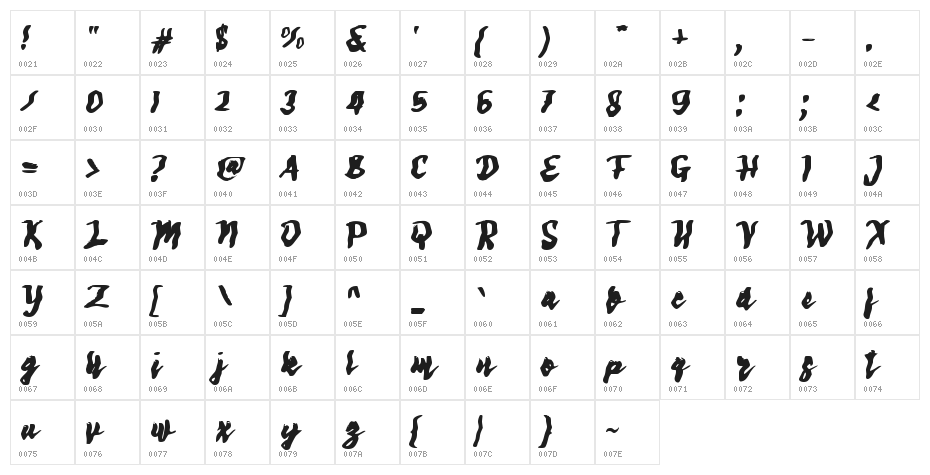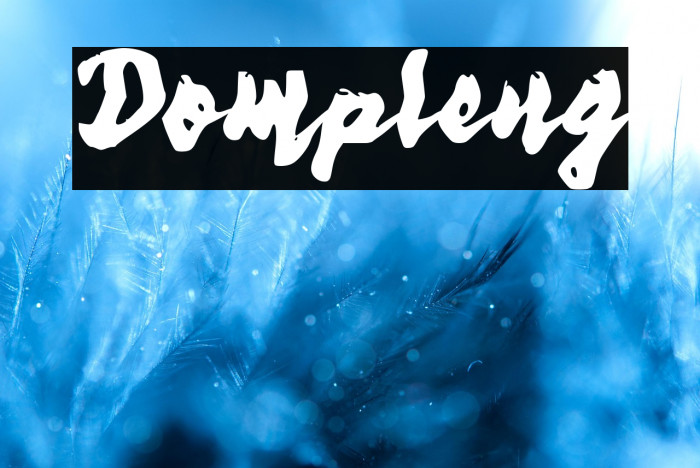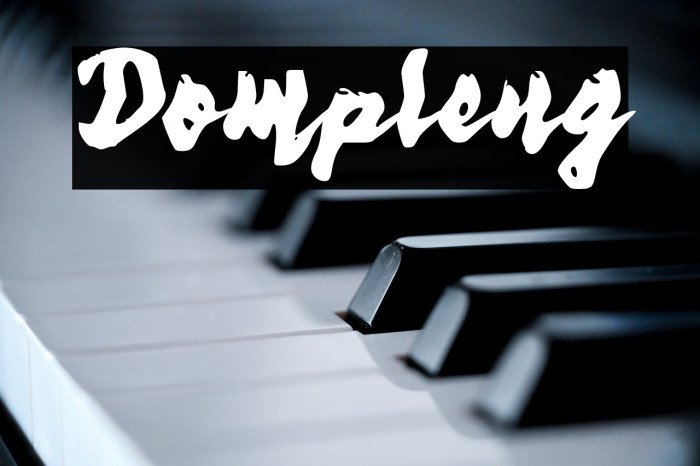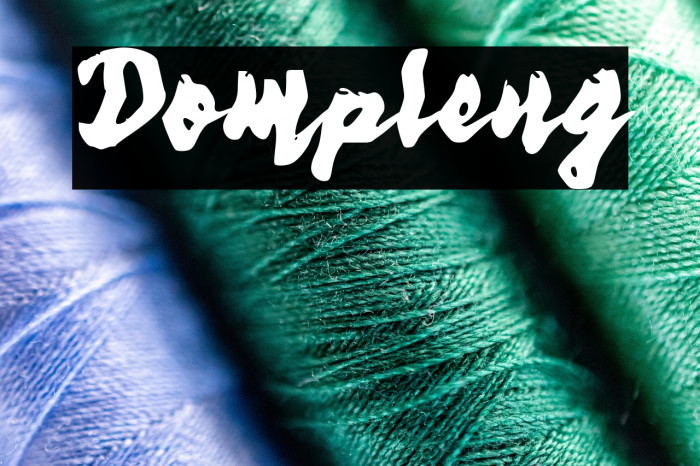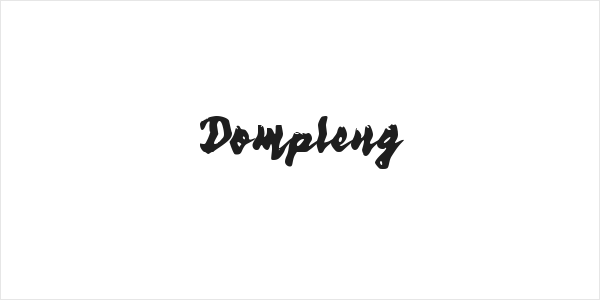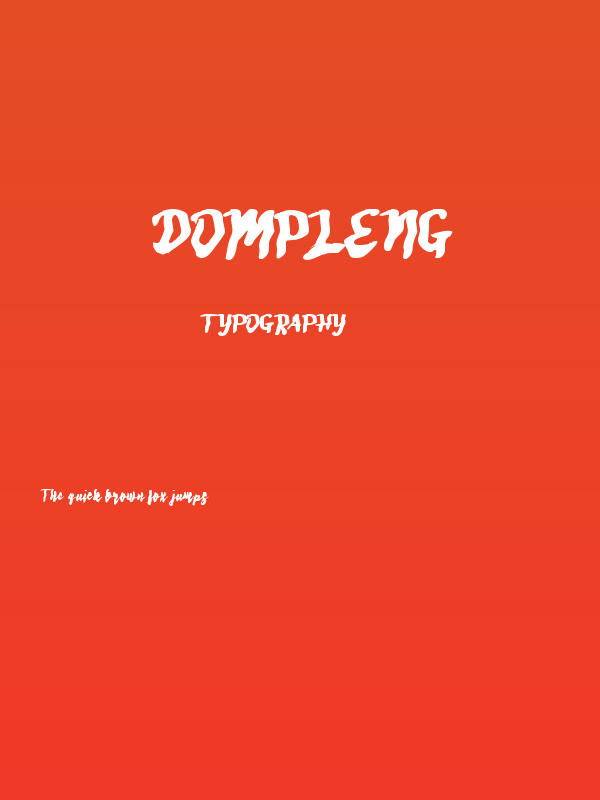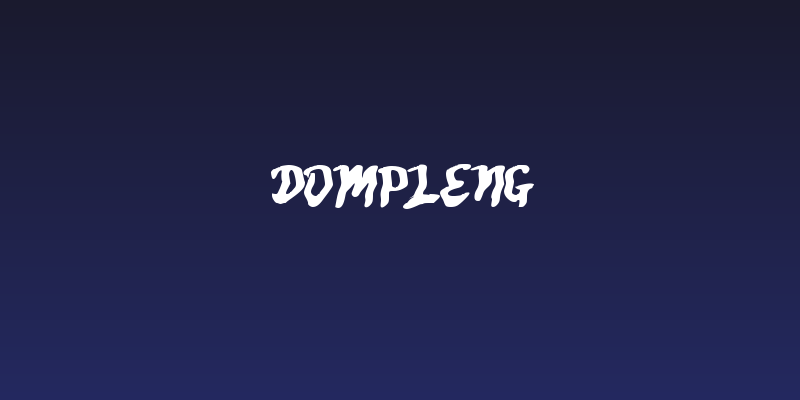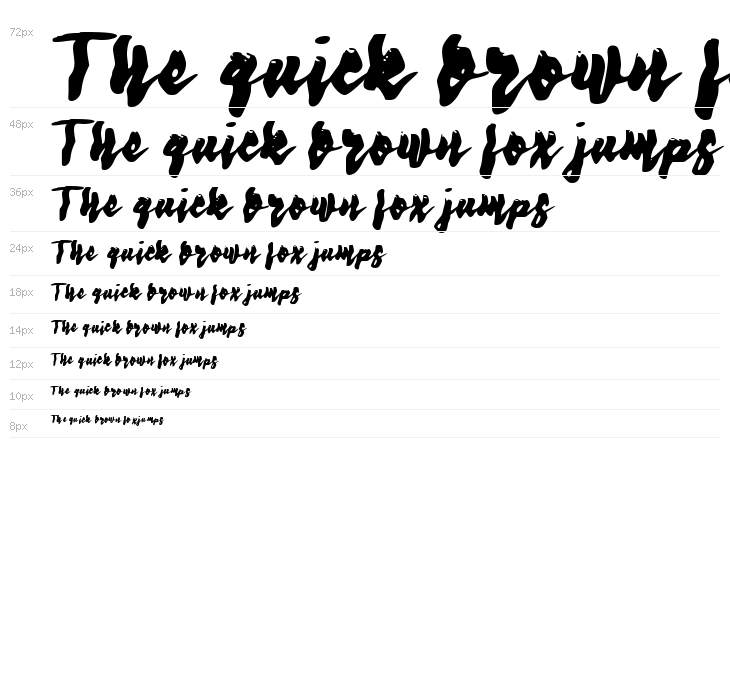
Dompleng Font
Dompleng Description
This font features a bold, expressive style with a hand-painted appearance. The characters are dynamic and fluid, with thick strokes and a slightly irregular baseline, giving it a lively and artistic feel. The uppercase and lowercase letters maintain a consistent flow, while the numerals and special characters complement the overall aesthetic. The font's unique brush-like texture adds depth and personality, making it stand out in any design. Its organic and freeform nature makes it ideal for projects that require a touch of creativity and individuality.
| Overall Style | Artistic, Expressive |
| Use Case | Logos, Posters, Creative Headlines |
| Proposed Projects | Ideal for artistic projects, branding, posters, album covers, and creative advertising. |